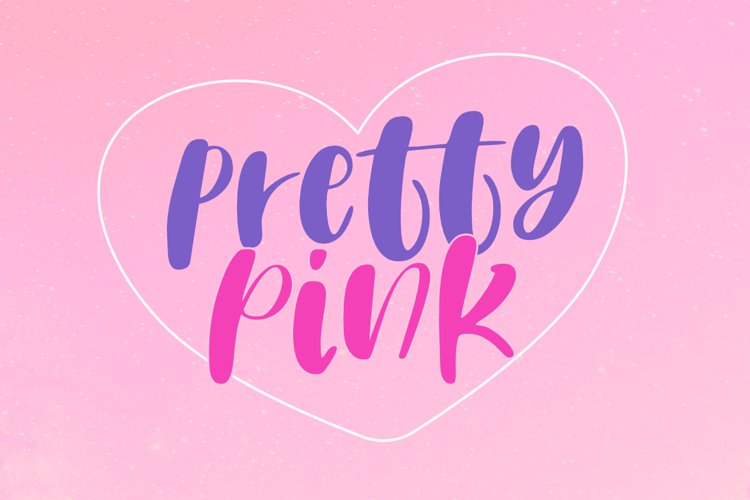
Pretty Pink is a bold and fun display font. It is suitable for use in any context, whether it’s being used on busy backgrounds or as a standalone headline.
Pretty Pink